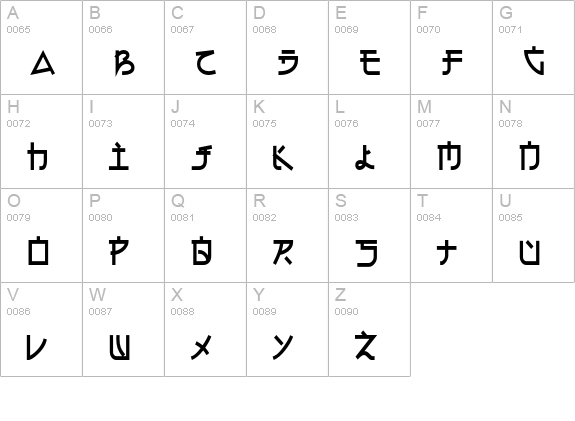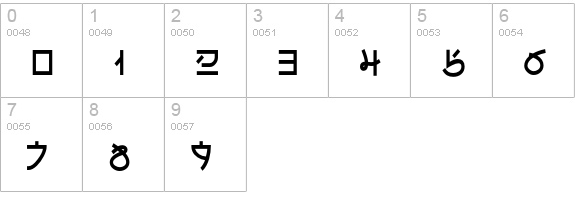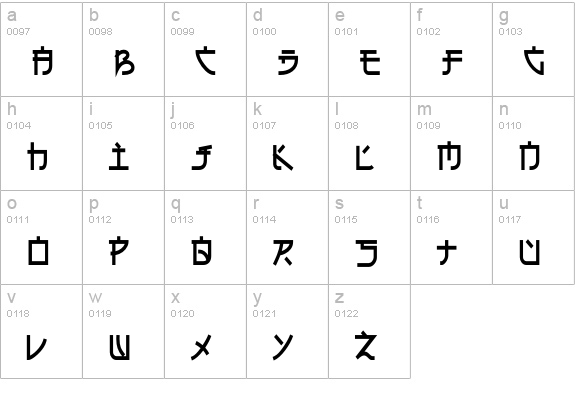
Electroharmonix Font Details
Electroharmonix font is a modern and stylish typeface that effortlessly combines elegance with a touch of edginess. With its sleek lines and contemporary design, this font is perfect for a variety of creative projects, from branding to advertising to social media graphics. The Electroharmonix font is not only visually appealing but also highly versatile, making it suitable for both digital and print designs. Its clean and crisp letterforms ensure readability while adding a unique flair to any text. Best of all, Electroharmonix font is available for free download at FontsMarket.com, making it easily accessible to designers and creatives looking to enhance their projects with a touch of sophistication. Don't miss out on the opportunity to elevate your designs with this stunning font - download it today and let your creativity shine!